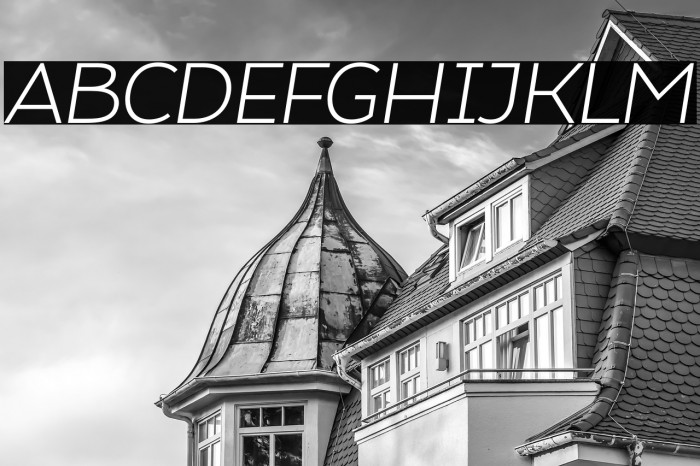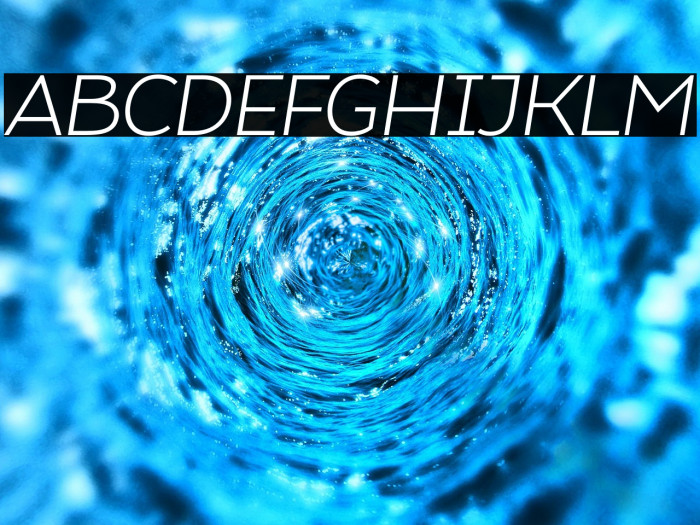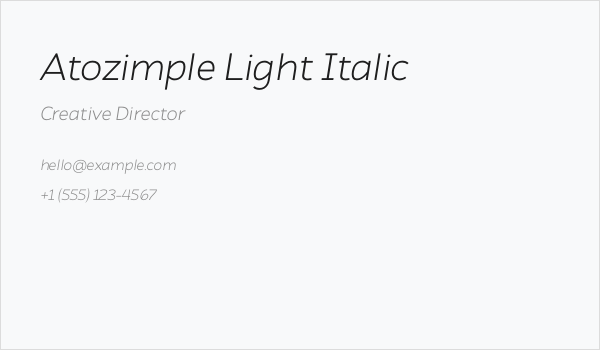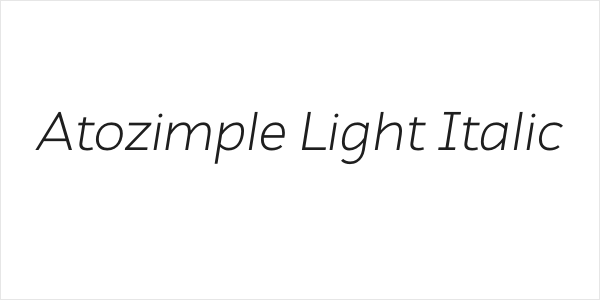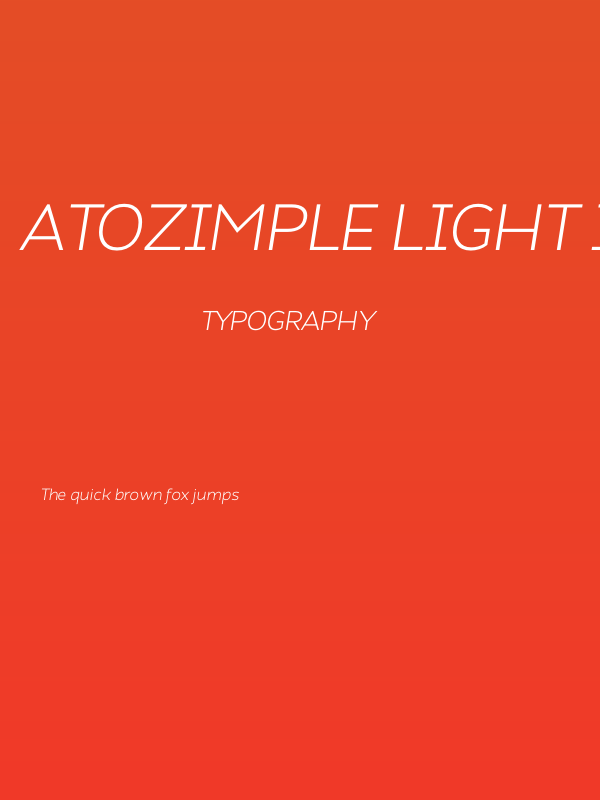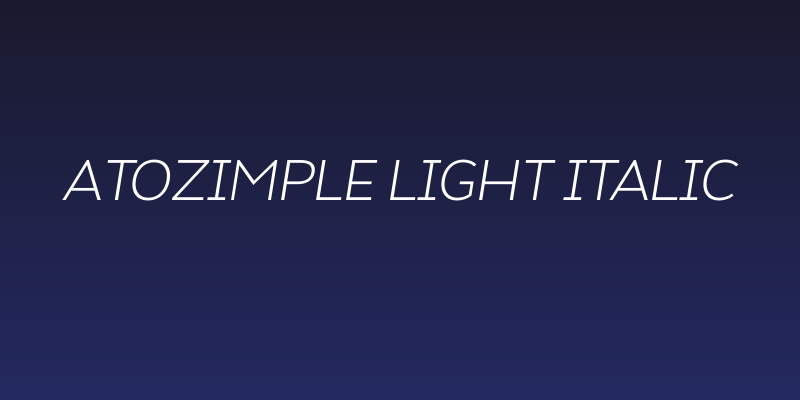
Atozimple Light Italic Font
Atozimple Light Italic Description
This font features a sleek and modern design with a light weight and italic style. The characters are elegantly slanted, giving a sense of movement and fluidity. The sans-serif design ensures clarity and readability, making it suitable for a variety of applications. The uppercase and lowercase letters maintain a consistent style, with smooth curves and clean lines. The numerals are equally well-designed, ensuring they blend seamlessly with the alphabetic characters. Special characters are included, maintaining the overall aesthetic of the font.
| Proposed Projects | Ideal for modern branding, elegant invitations, stylish websites, and contemporary advertising. |